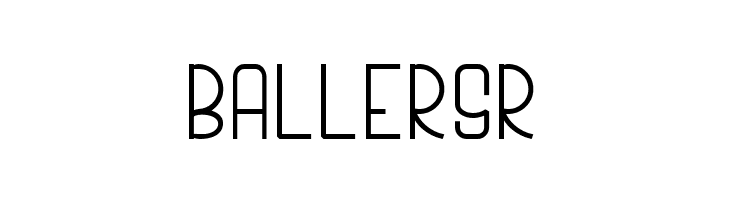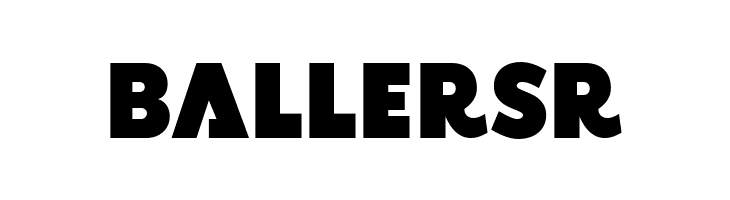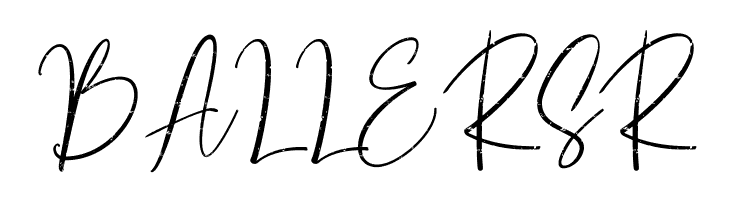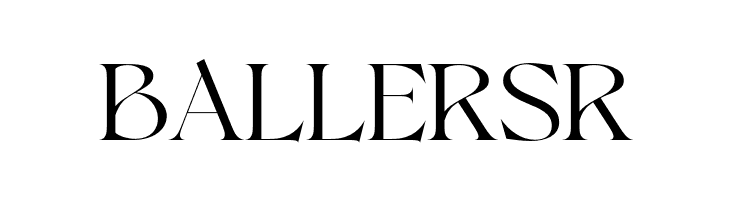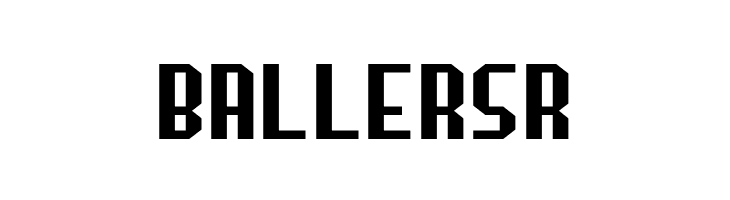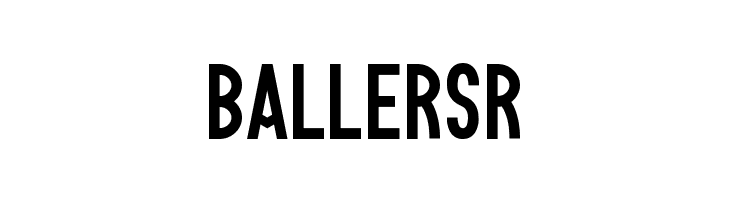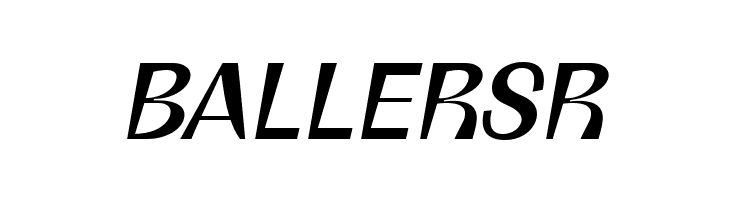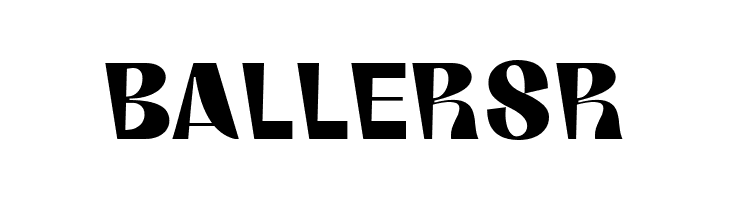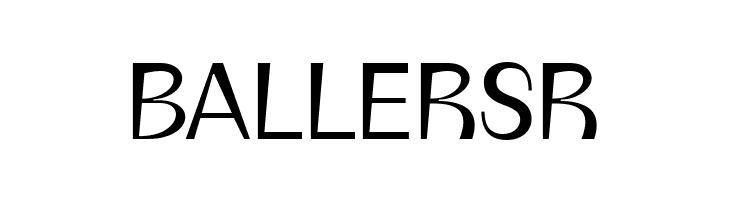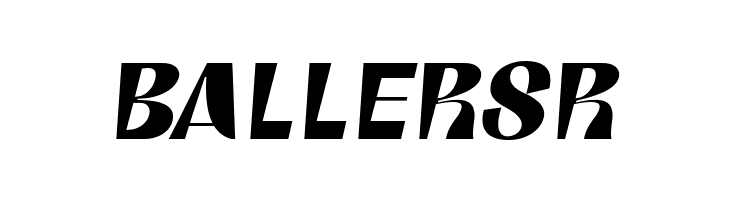
• BOLTZZv8 Regular
A bold, geometric font with strong, modern letterforms.
• BON ViVER
• Bondi Sans DEMO Rough
A dynamic, textured handwritten font with a playful and artistic style.
• Bondoyudo Sans
A bold, geometric font with sharp, angular lines and a modern aesthetic.
• Bonjour Allgera Sans
A modern, geometric sans-serif font with tall, narrow characters and uniform stroke width.
• Bonjour De Jong Sans
A bold, modern sans-serif font with clean lines and uniform strokes.
• Bonkyfreepersonaluse-Regular
A high-contrast serif font with elegant, sharp serifs and a modern touch.
• Bonnet
• Boring Sans A Trial Bold
A bold, clean sans-serif font with geometric shapes and uniform strokes.
• Boring Sans A Trial Bold Italic
A bold, italic sans-serif font with a modern and dynamic style.
• Boring Sans A Trial Heavy
A bold, heavy sans-serif typeface with a modern and impactful design.
• Boring Sans A Trial Heavy Italic
A bold, heavy, italic sans-serif font with a modern and dynamic style.
• Boring Sans A Trial Italic
A modern, italic sans-serif font with clean lines and excellent readability.
• Boring Sans A Trial Light
A clean, minimalist sans-serif font with consistent stroke width.
• Boring Sans A Trial Light Italic
A modern, light, italic sans-serif font with sleek and elegant characters.
• Boring Sans A Trial Medium
A clean and modern sans-serif font with consistent stroke width and balanced spacing.
A modern, italic sans-serif font with clean lines and excellent legibility.
• Boring Sans A Trial Regular
A clean, modern sans-serif typeface with balanced proportions and high legibility.
• Boring Sans B Trial Bold
A bold, modern sans-serif font with clean lines and uniform stroke widths.
• Boring Sans B Trial Bold Italic
• Boring Sans B Trial Heavy
A bold, heavy sans-serif font with a modern and clean design.
• Boring Sans B Trial Heavy Italic
A bold, heavy, and italic sans-serif font with a strong presence.
• Boring Sans B Trial Italic